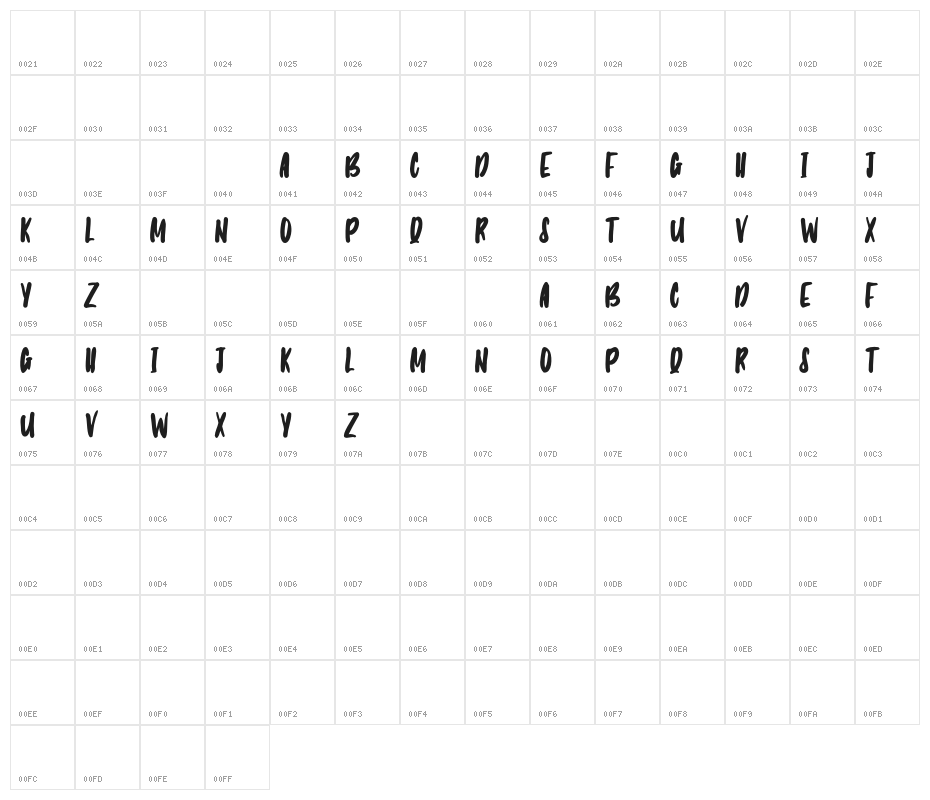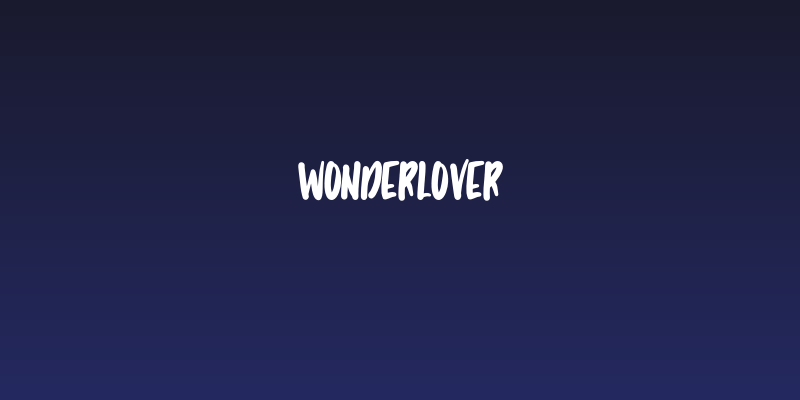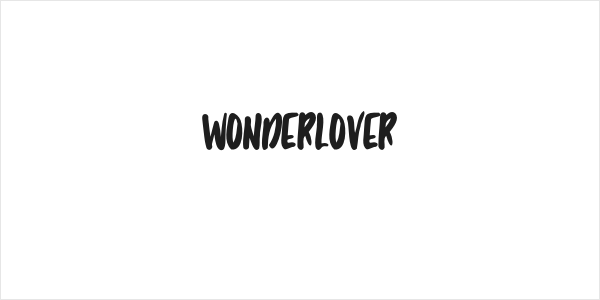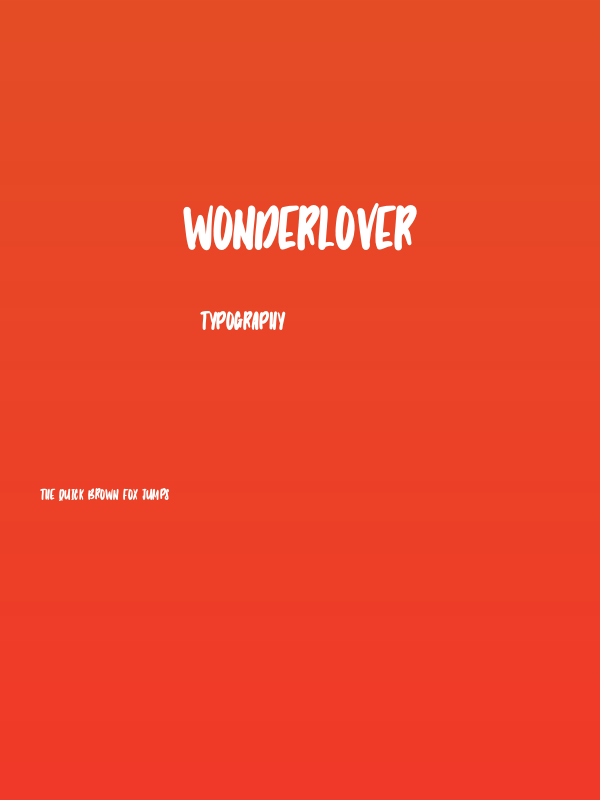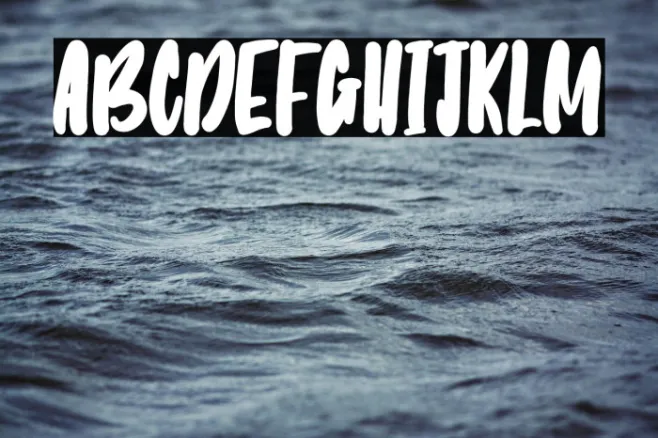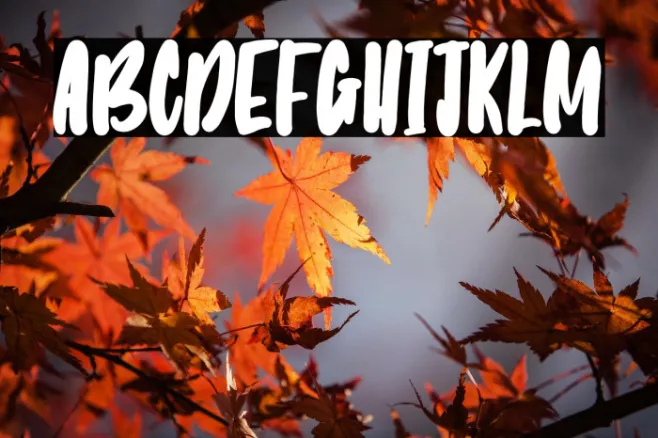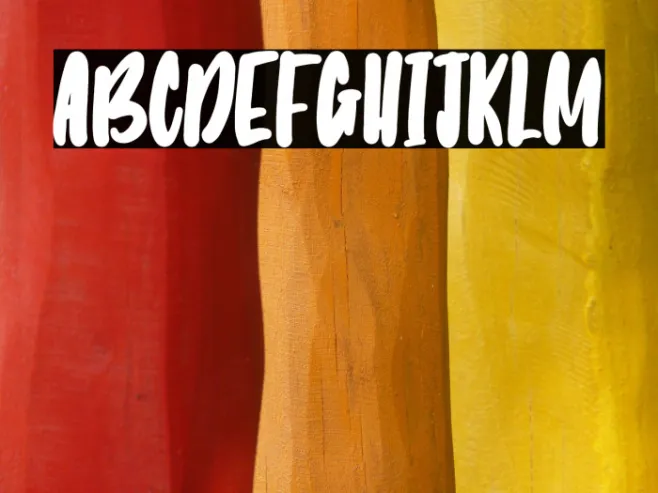
Wonderlover Font
Wonderlover Description
This font features a bold, handwritten style with a playful and energetic appearance. The characters are slightly slanted, giving a dynamic and informal feel. The strokes are thick and consistent, contributing to a strong visual impact. The uppercase letters are prominent and well-defined, while the lowercase letters maintain a cohesive flow. The overall design is modern and expressive, making it suitable for creative and casual applications. The font's unique character shapes and lively style make it stand out, adding personality to any design project.
| Proposed Projects | Ideal for branding, posters, social media graphics, and invitations. |